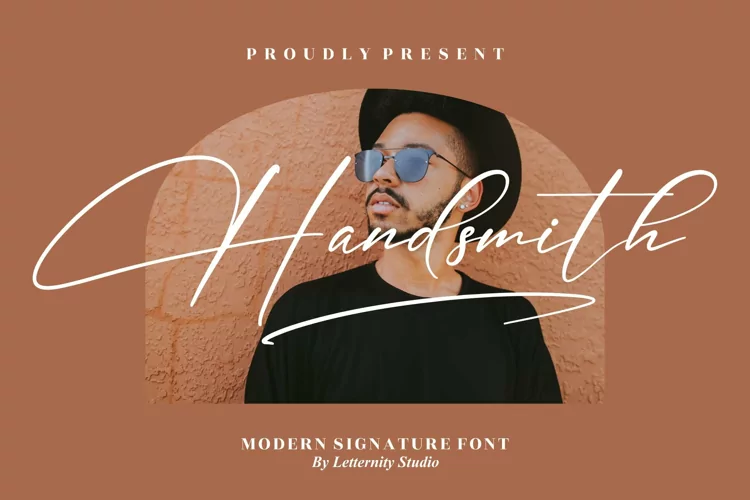
Handsmith - Modern Signature Font
Handsmith
Handsmith Italic
Handsmith – Modern Signature Font, from Letternity Studio, is a beautiful script font, suitable for any projects such as: logos, branding projects, homeware designs, product packaging, mugs, quotes, posters, shopping bags, t-shirts, book covers, name card, invitation cards, greeting cards, label, photography, watermark, special events, and all your other lovely projects that need a beautiful script taste.
• Alternate and Ligature